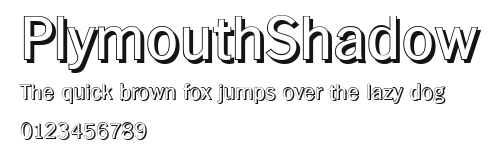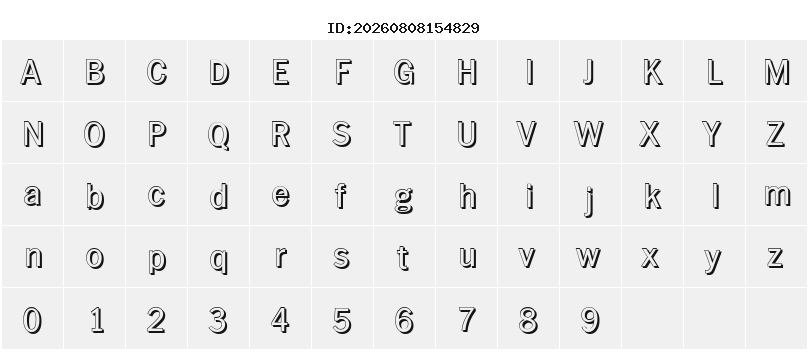
• Font Name: PlymouthShadow
• Designer: SoftMaker Software GmbH
About PlymouthShadow.ttf
PlymouthShadow.ttf is a modern, elegant sans-serif font designed for ultimate readability and visual harmony. Perfect for branding, headlines, web design, and print materials.